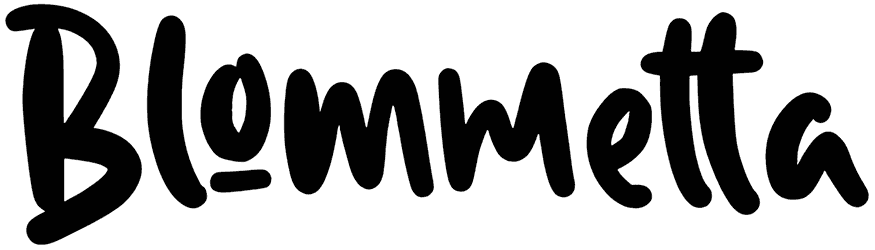
Blommetta Font
Blommetta, a brand-new font that appears to have been handwritten, seems to meet all of your expectations. This handwriting font can be used effectively for children’s storybooks, movies, cartoons, and birthday cards.